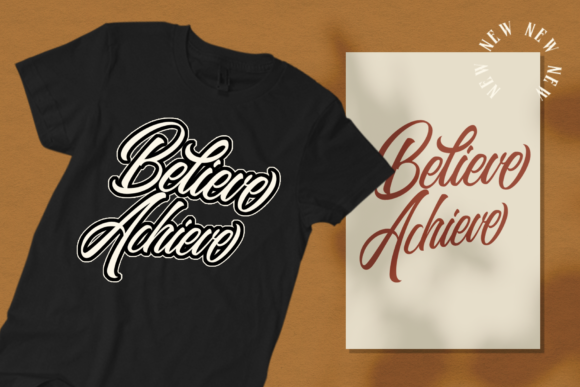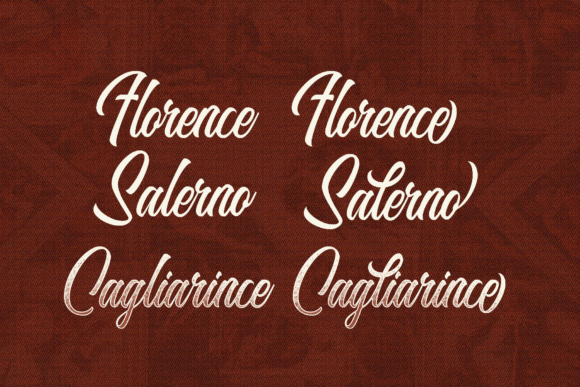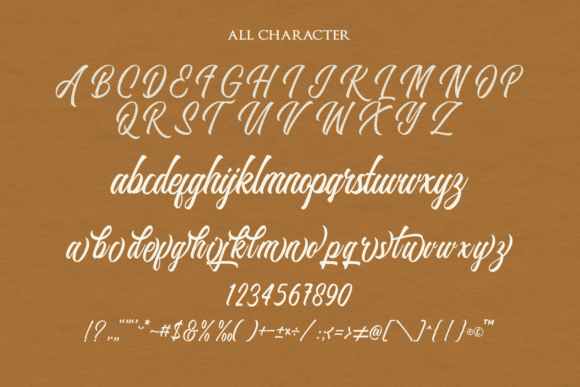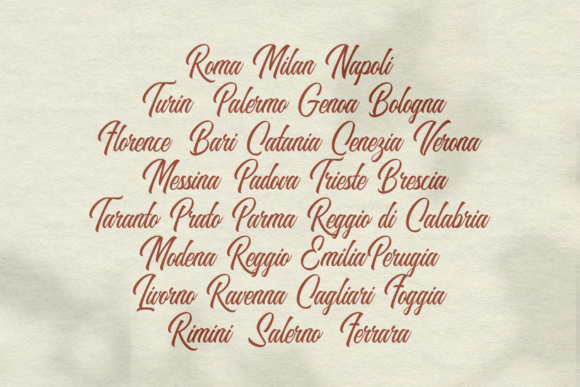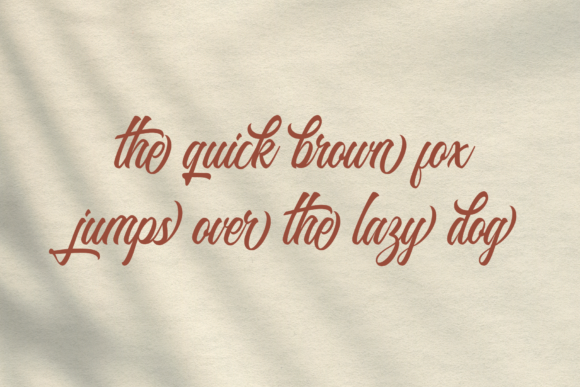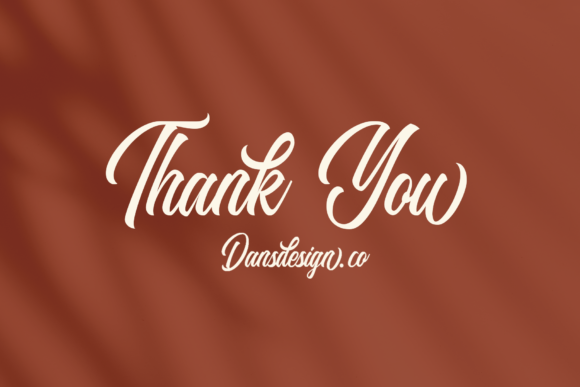
Belluci Font: Elevate Your Designs with a Stylish and Bold Handwritten Touch
Are you looking for a font that can add a touch of elegance and sophistication to your designs? Look no further than the Belluci Font. This gorgeous and bold handwritten font is crafted to give your headlines and logotype projects a stylish touch that’s sure to turn heads. In this article, we’ll dive into the features and benefits of the Belluci Font and explore how it can elevate your designs to the next level.
A Strong, Confident, and Dynamic Font
The Belluci Font reads as strong, confident, and dynamic, making it perfect for designers who want to create a lasting impression. Its bold and expressive letterforms exude a sense of nostalgia, while its modern aesthetic ensures that your designs stay fresh and relevant. Whether you’re working on a logo, headline, or any other design project, the Belluci Font is sure to make a statement.
One of the standout features of the Belluci Font is its PUA (Private Use Area) encoding. This means that you can access all of the glyphs and swashes with ease, giving you complete creative control over your designs. With the Belluci Font, you can easily add flourishes and embellishments to your text, making it truly unique and eye-catching.
The Belluci Font is a versatile design asset that’s perfect for a wide range of projects, from logos and branding to packaging and advertising. Designers and crafters will love the flexibility and creative freedom that this font offers. Whether you’re working on a personal project or a client’s brief, the Belluci Font is sure to inspire your best work.
Add a Touch of Nostalgia to Your Designs
The Belluci Font has a distinctly nostalgic feel that’s sure to evoke memories of classic design and typography. Its bold and expressive letterforms are reminiscent of vintage posters and advertisements, while its modern aesthetic ensures that your designs stay fresh and contemporary. With the Belluci Font, you can add a touch of nostalgia to your designs without sacrificing style or sophistication.
• Bold and expressive letterforms: The Belluci Font features bold and expressive letterforms that are sure to make a statement.
• PUA encoded: Easily access all of the glyphs and swashes with PUA encoding.
• Nostalgic feel: Add a touch of nostalgia to your designs with the Belluci Font’s distinctly vintage aesthetic.
• Versatile: Perfect for a wide range of projects, from logos and branding to packaging and advertising.
In conclusion, the Belluci Font is a stylish and bold handwritten font that’s perfect for designers and crafters who want to elevate their designs to the next level. With its strong, confident, and dynamic letterforms, PUA encoding, and nostalgic feel, this font is sure to inspire your best work. Whether you’re working on a personal project or a client’s brief, the Belluci Font is a versatile design asset that’s sure to deliver results.